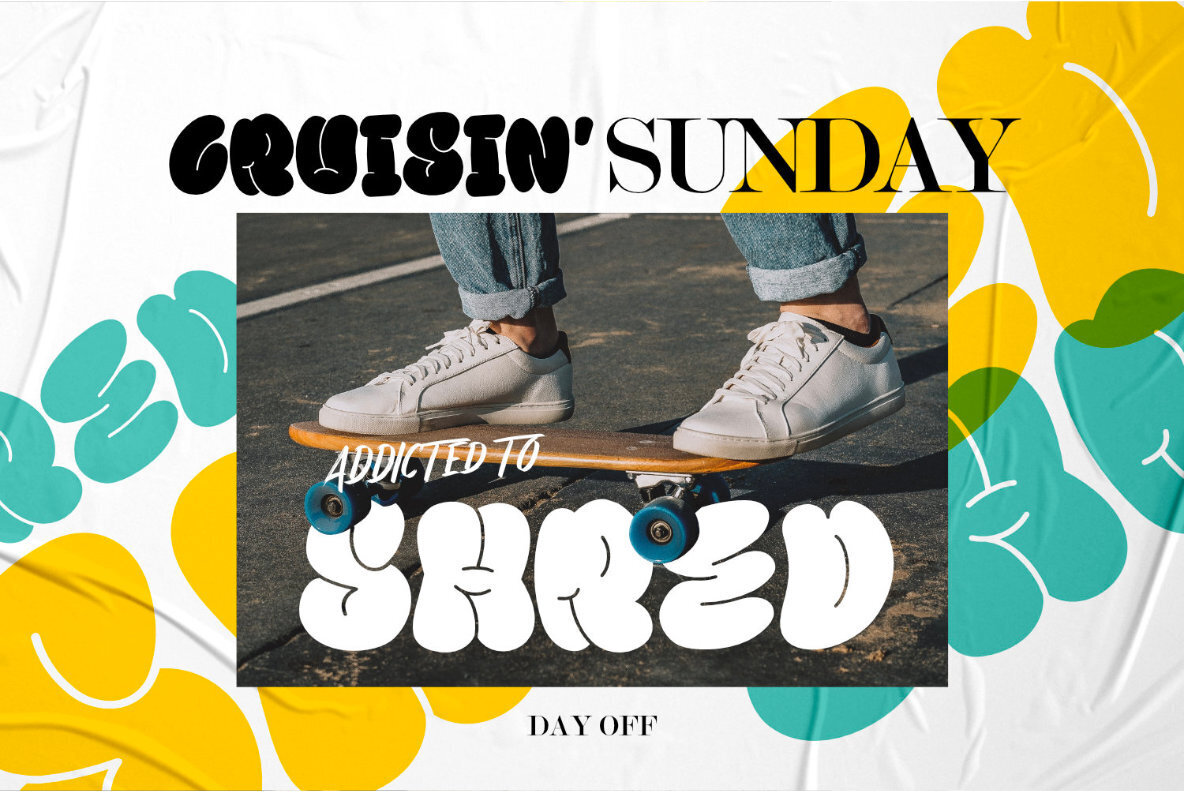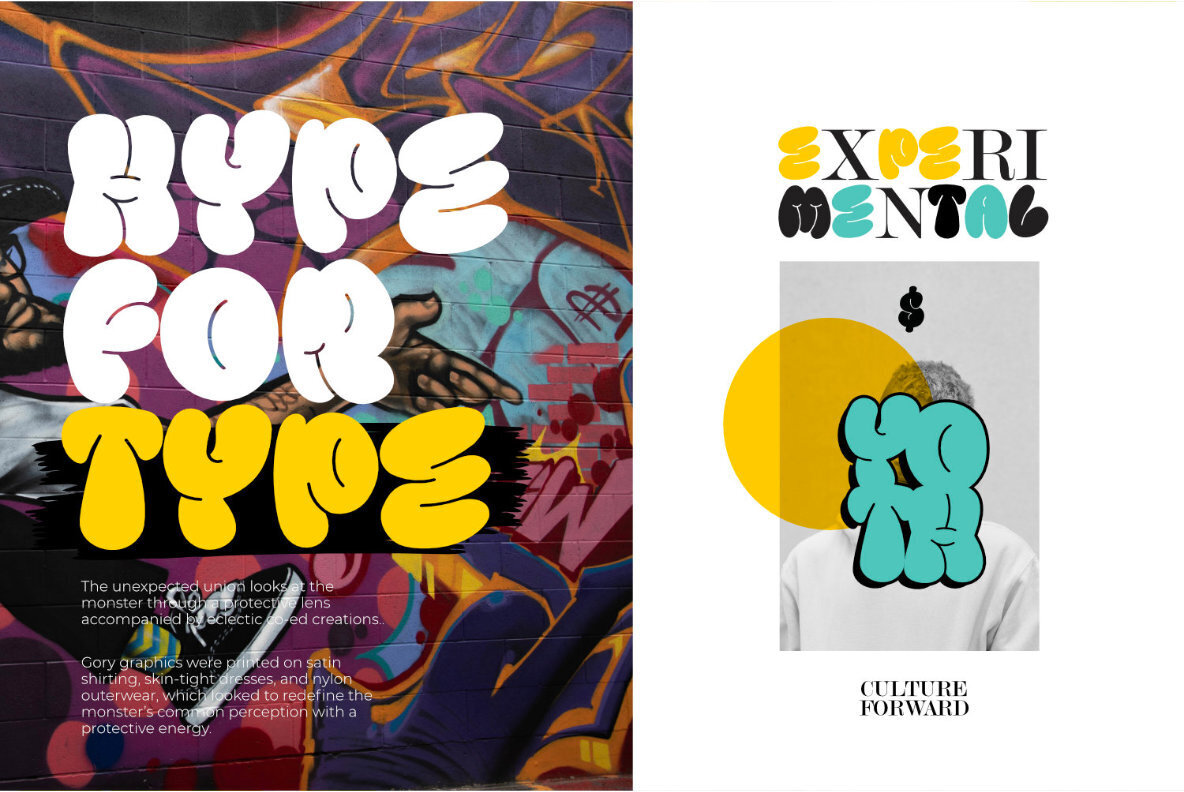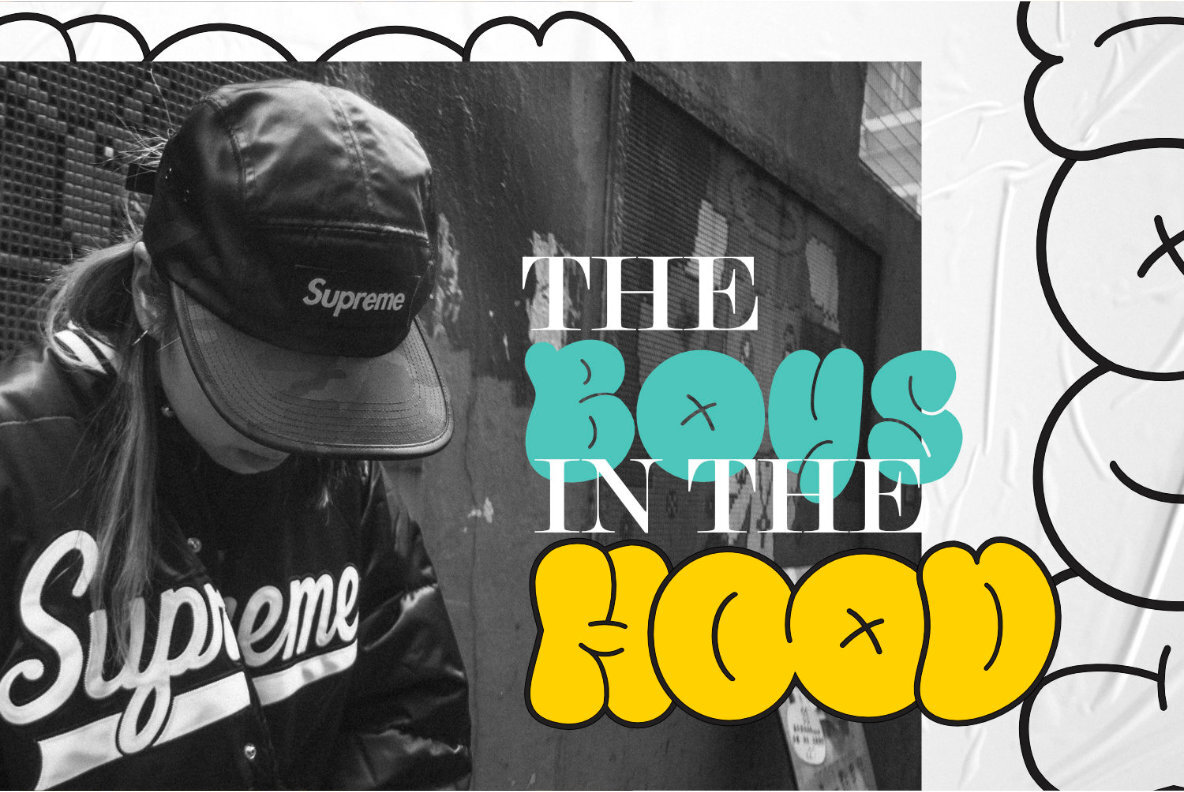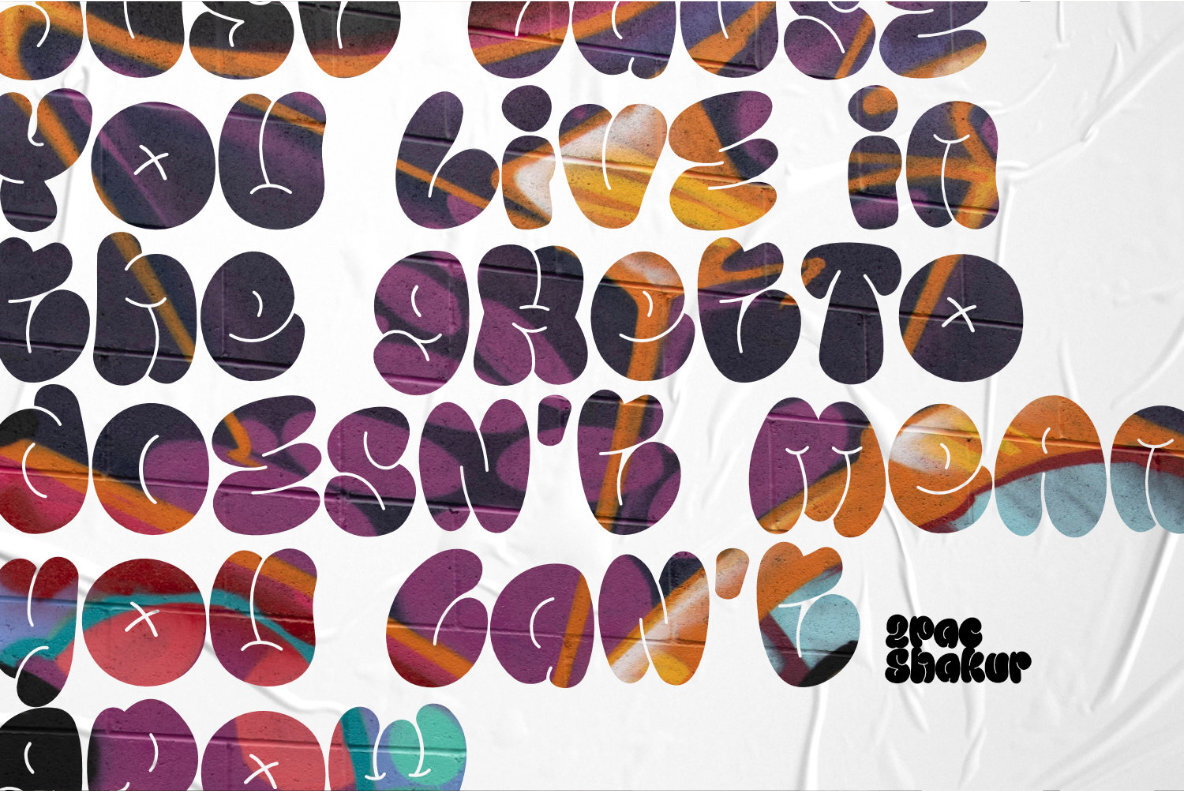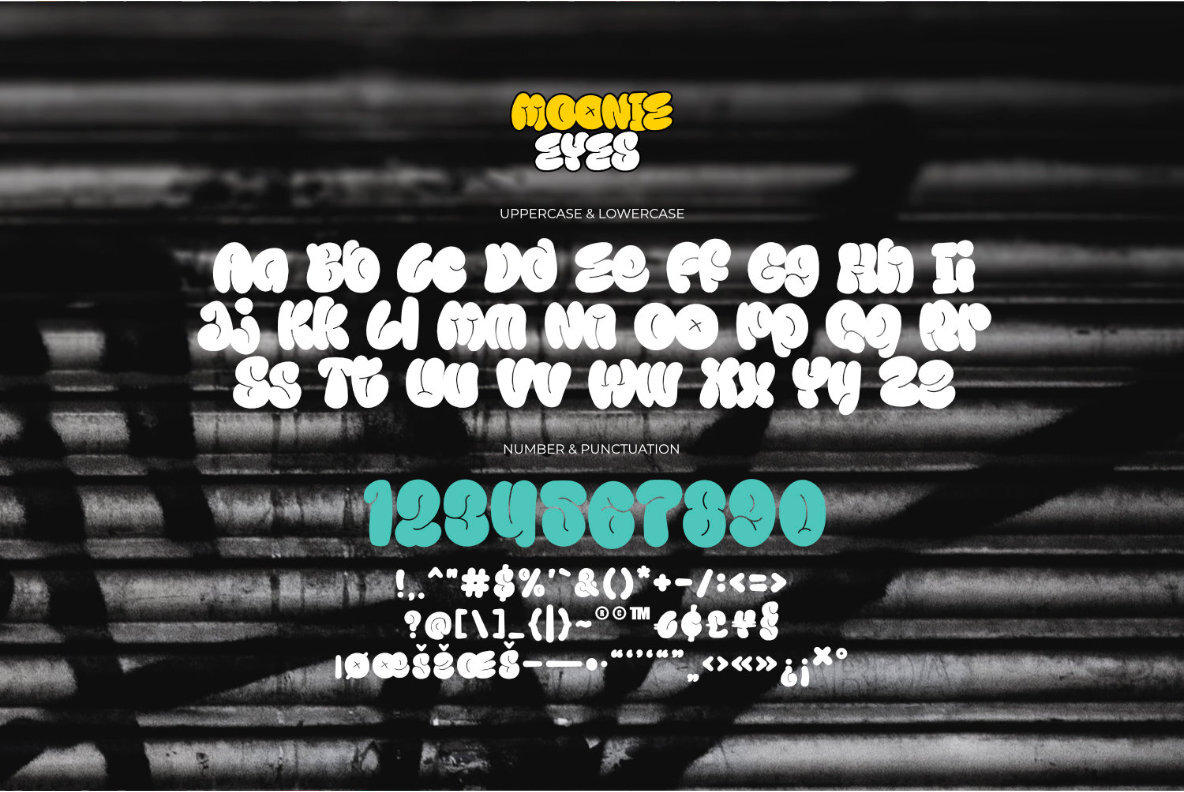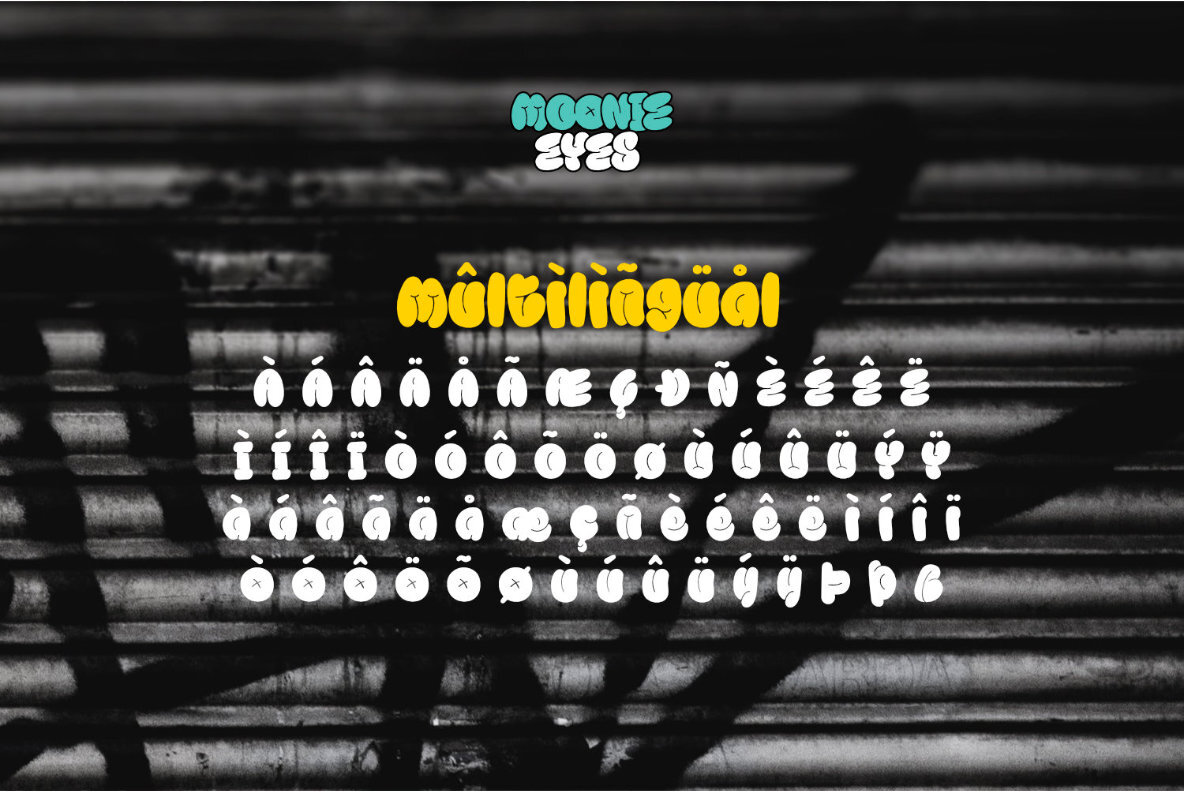
Moonie Eyes Font
expand_font Moonie Eyes Font Discover the rebellious charm of Moonie Eyes, a graffiti-inspired font that adds an edgy flair to streetwear brands, posters, and fashion designs. Bubble,Tag,Tag,Graffiti,Graffiti Brush,Graffiti Wall,Street,Hipster,Urbans,Hype,Magazine,Hypebeast,Display Explore Exceptional Fonts for Digital and Traditional Media Fontpath offers a large variety of fonts for every designer, all at affordable prices and in multiple formats. Browse our best in class fonts today for all your creative needs, you can find everything you need right here at our site! Fonts,sans,sans serif,retro,script,decorative,title,FontPath 20140312040223 Fontpath offers 200,000+ of the most professional fonts found online, start downloading today! Real-Time Font Discovery at Fontpath